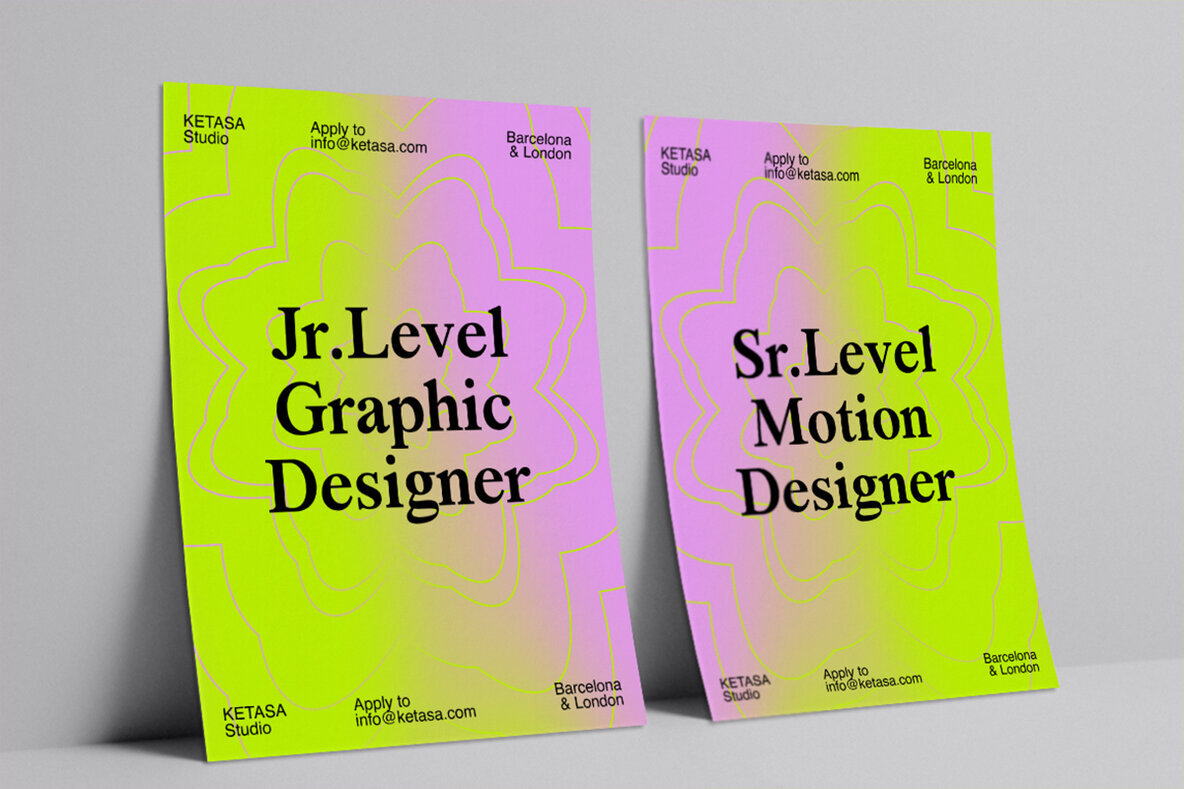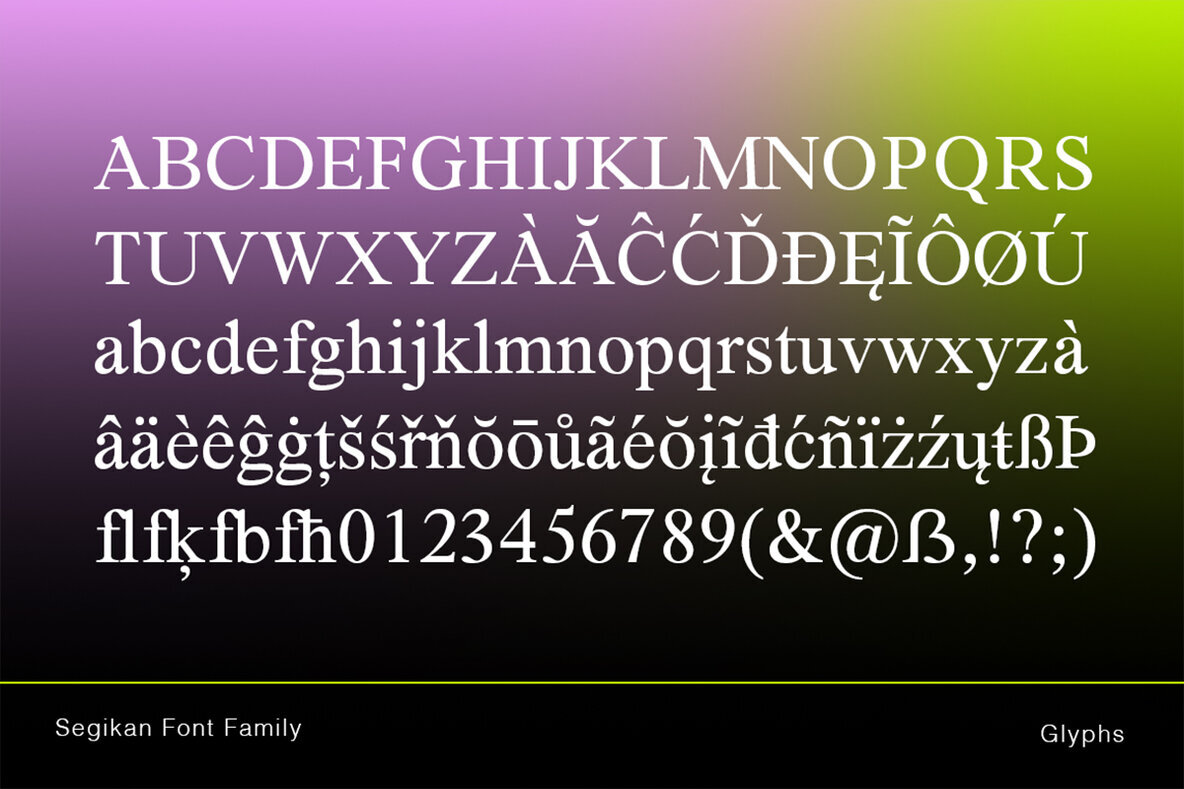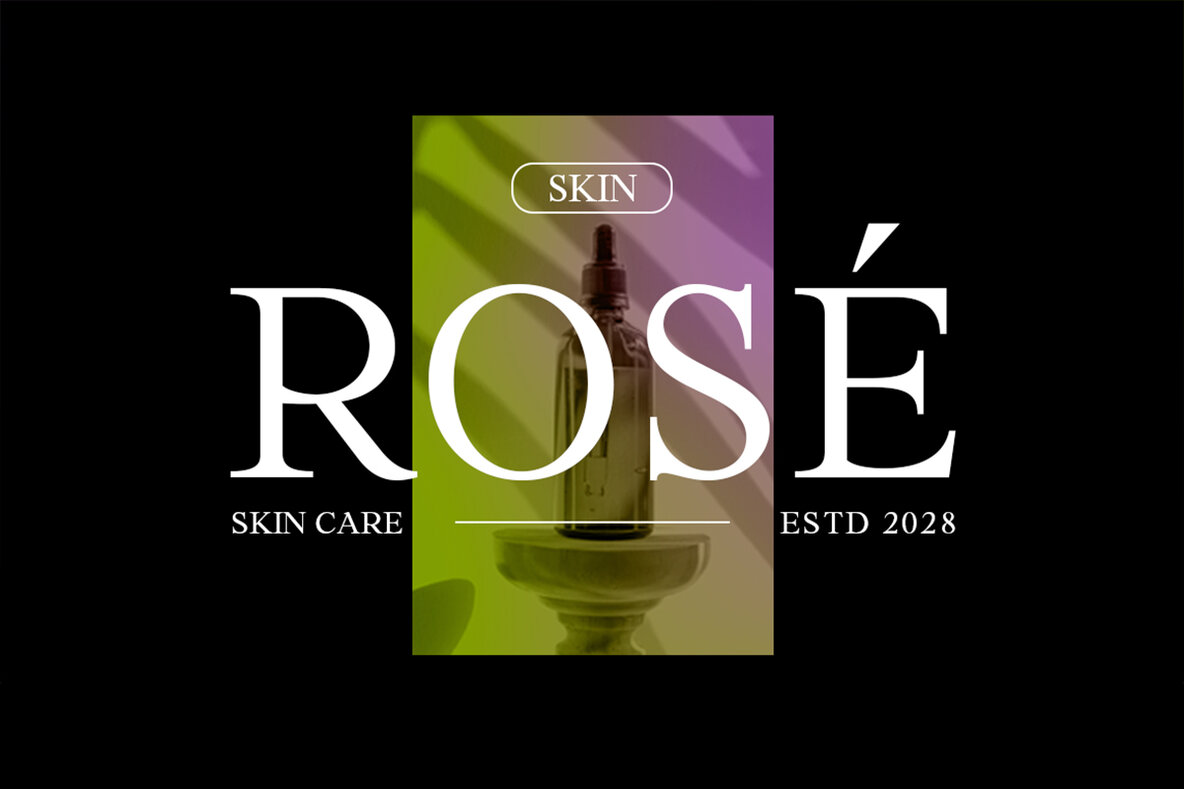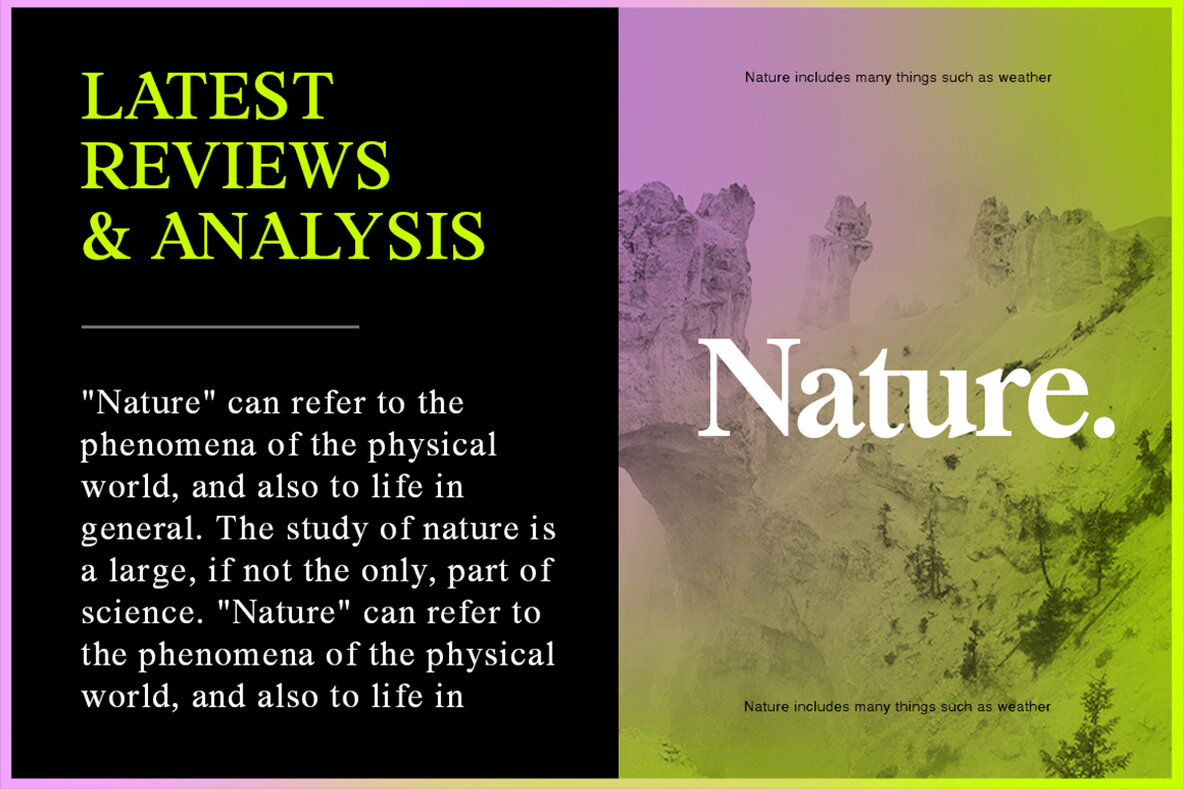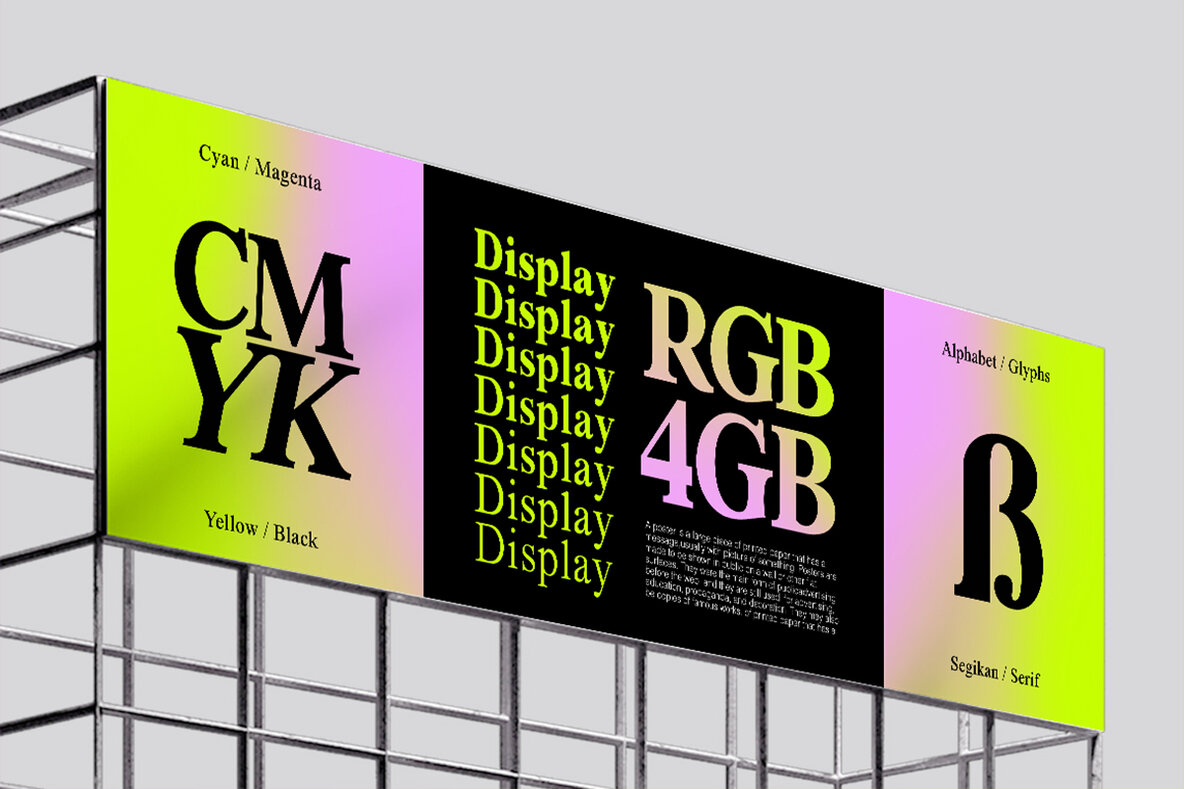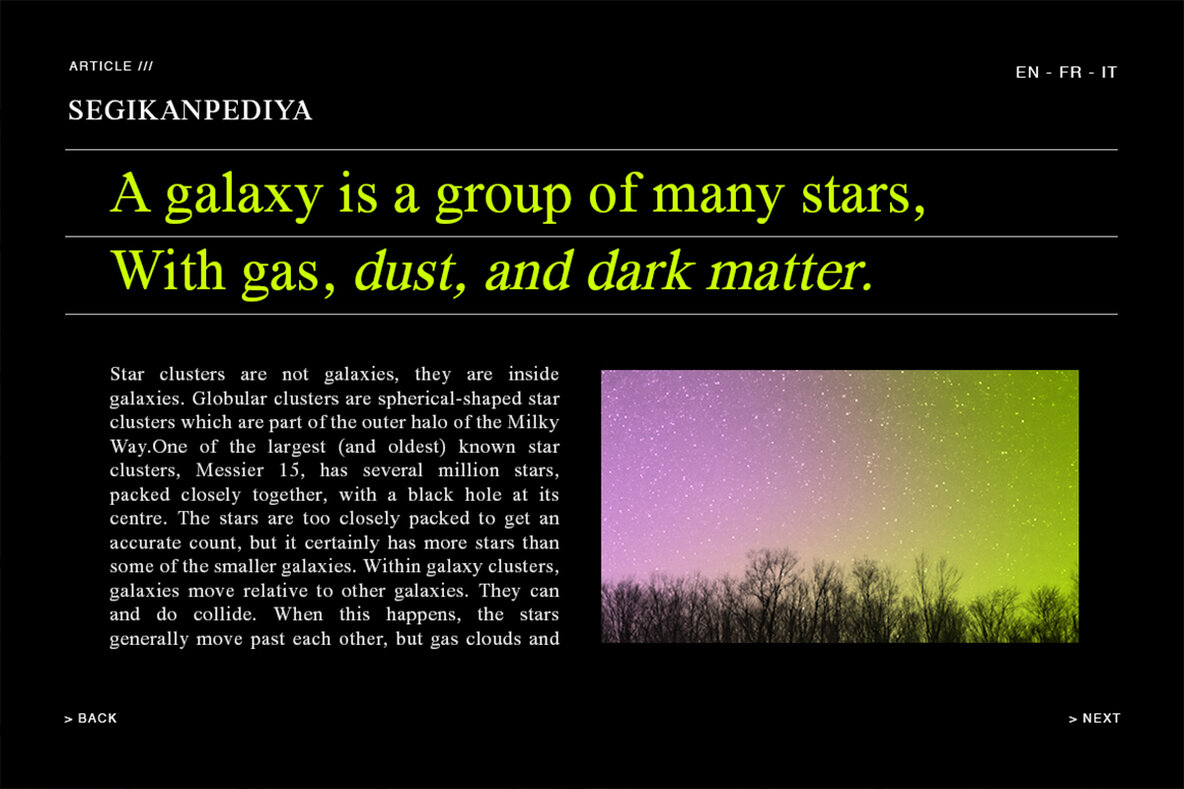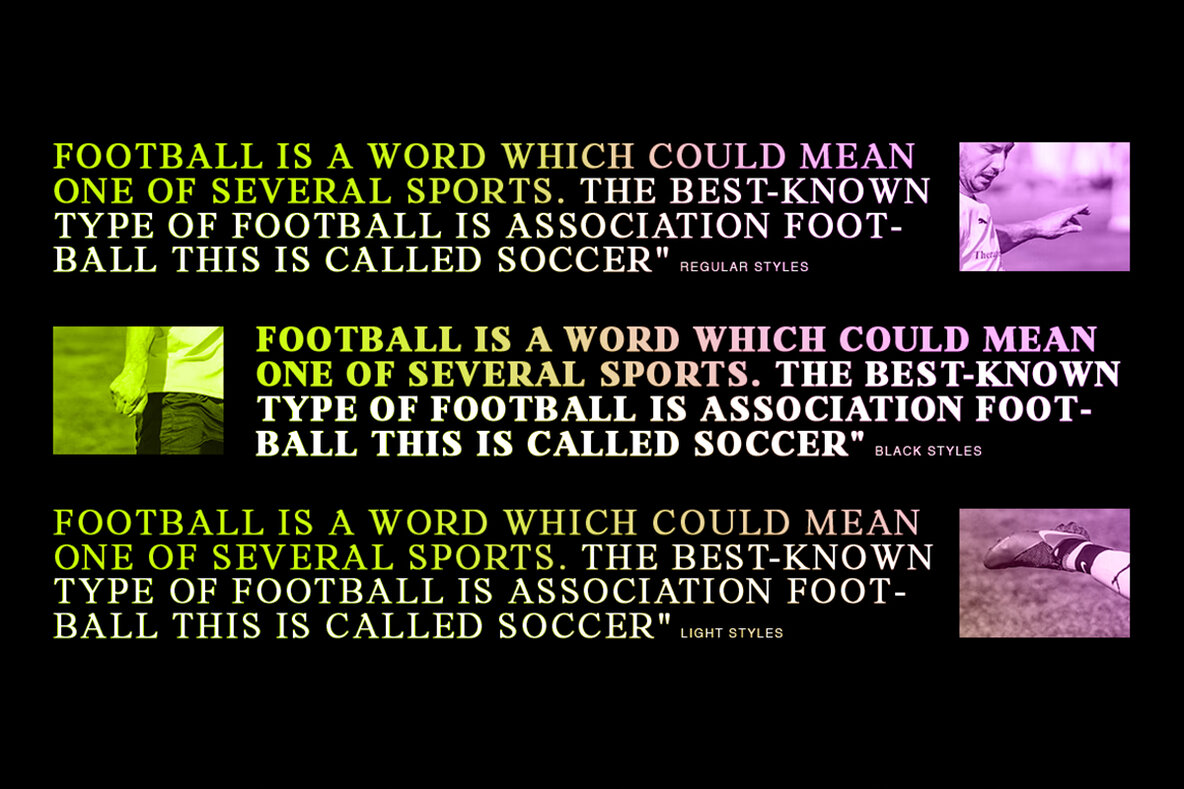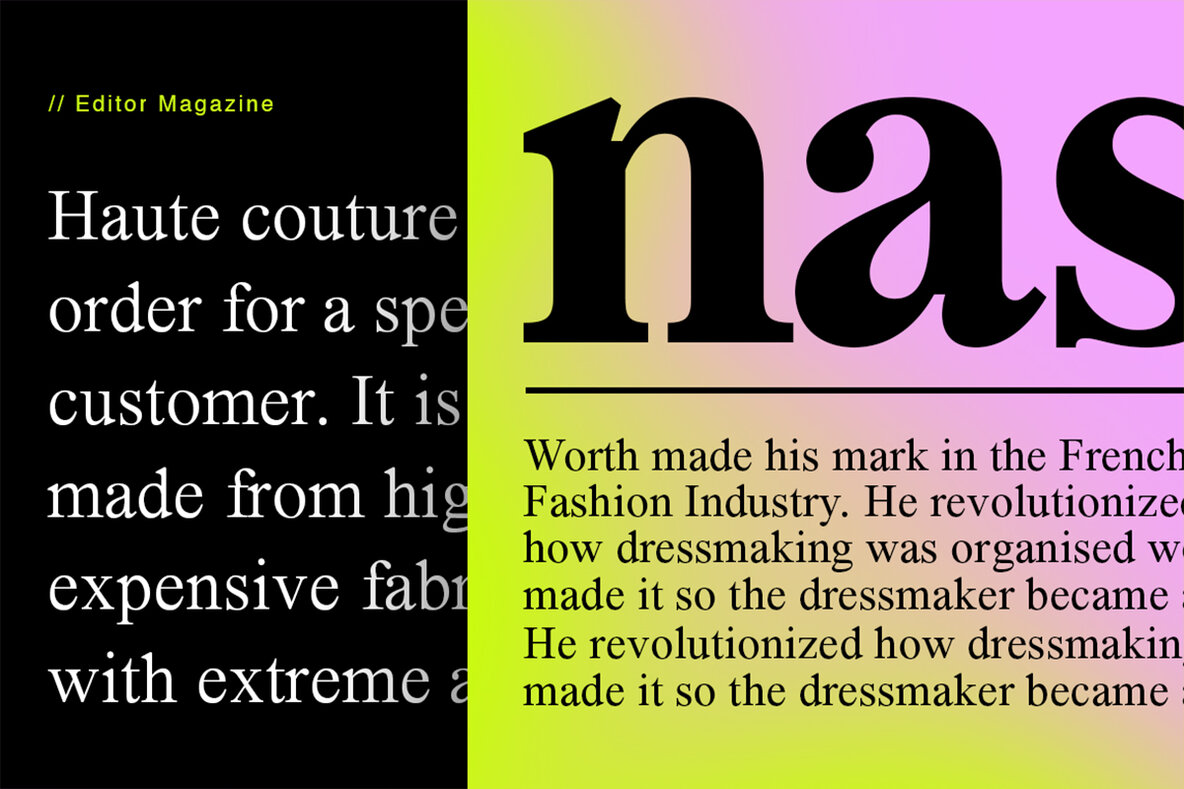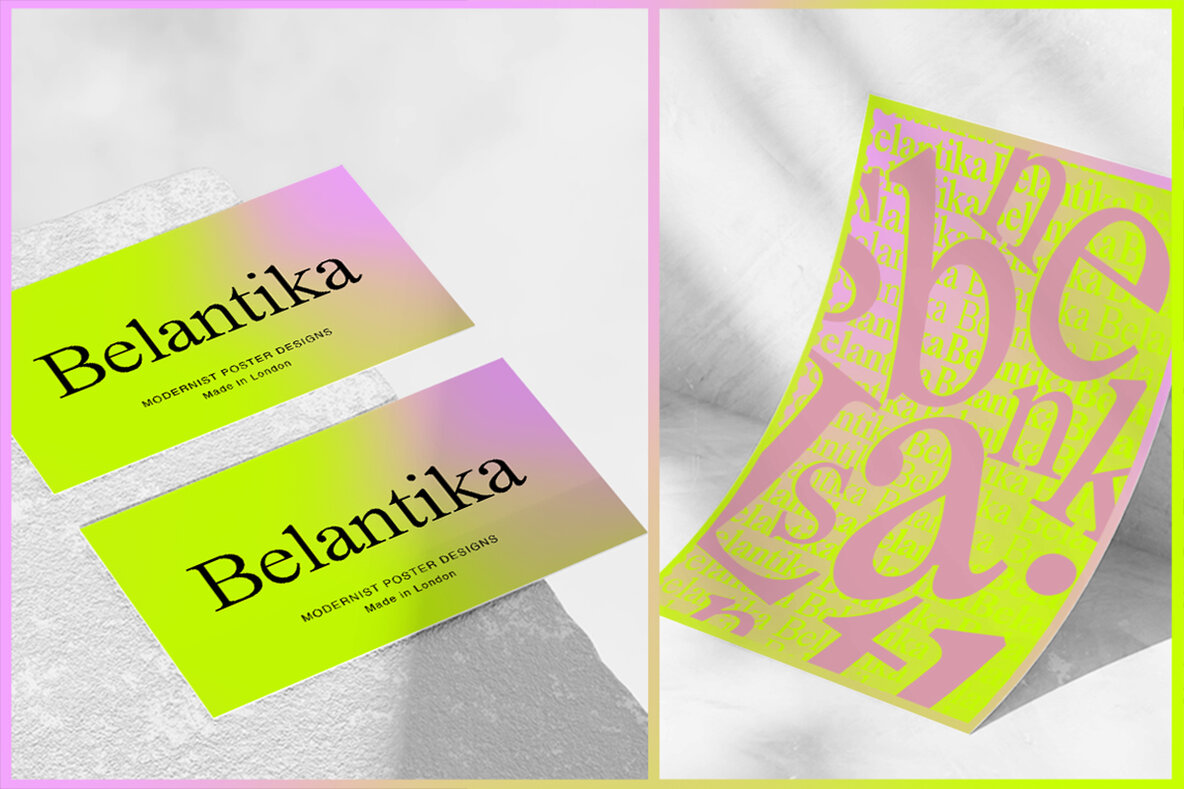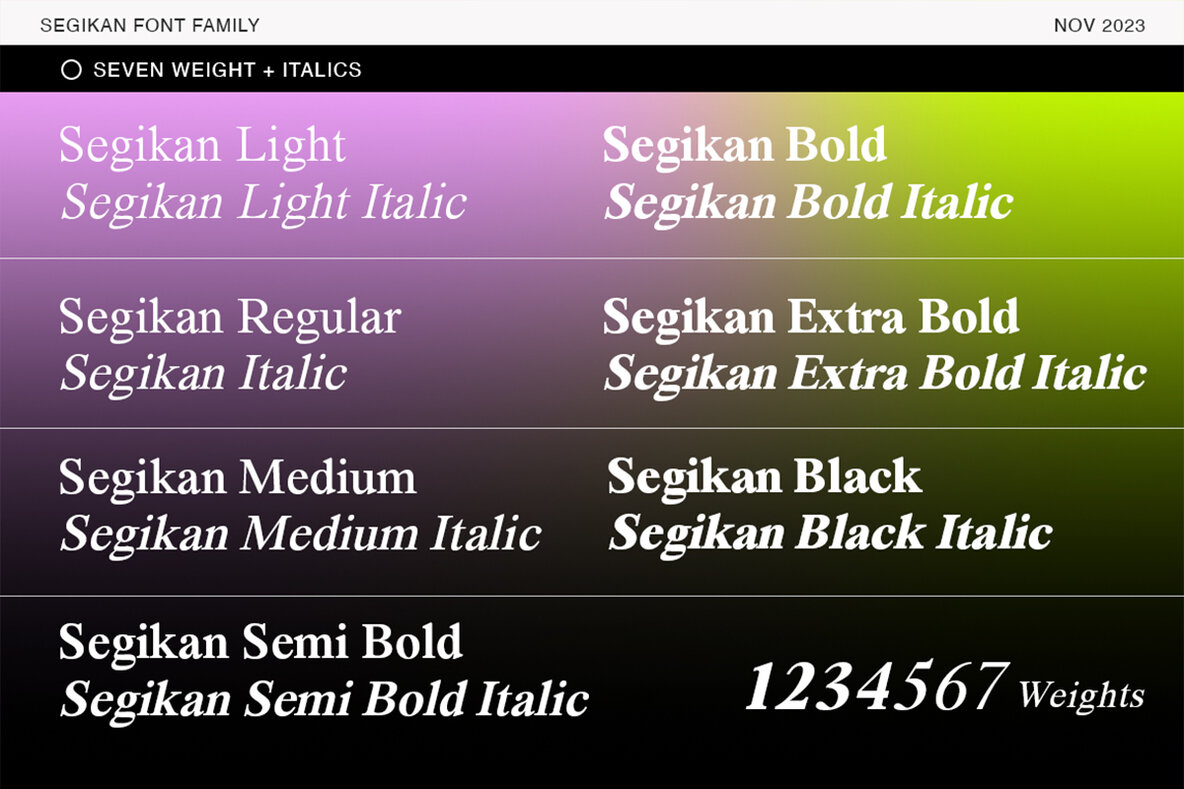
Segikan Font
Segikan is an elegant and warm serif typeface designed to enhance legibility with a classic nuance. This versatile font is perfect for adding a touch of sophistication to various design projects. This typeface is an excellent choice for diverse applications including:Segikan: Elegant and Warm Classic Serif Typeface